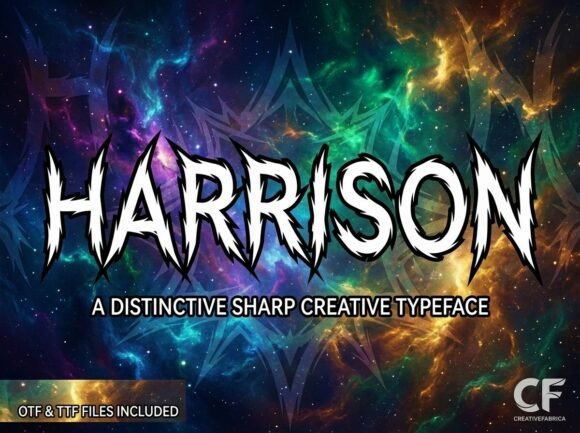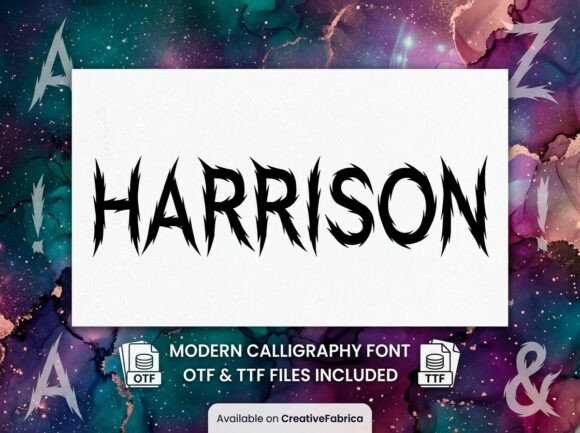
Unleash Primal Fear with Harrison: The Distressed Horror Display Font
In the realm of typography, few fonts evoke the same level of fear and unease as Harrison, a distressed display font designed to unleash a sense of primal fear. With its jagged, razor-sharp letterforms and “slasher-film” soul, Harrison is the perfect choice for designers and crafters looking to create spine-chilling horror movie titles, dark fantasy novel covers, heavy metal album art, and Halloween event branding.
The Inspiration Behind Harrison
Harrison’s design is inspired by the raw, unbridled energy of horror movies and the dark, mystical worlds of fantasy literature. The font’s jagged, thorn-like silhouettes and frantic claw marks evoke the sense of chaos and destruction that is characteristic of the horror genre. With its aggressive verticality and raw, weathered edges, Harrison is a font that demands attention and inspires fear.
Design Features of Harrison
Harrison’s design features a range of characteristics that make it the perfect choice for horror and dark fantasy projects. Some of the key design features of Harrison include:
• Jagged, razor-sharp letterforms: Harrison’s letterforms are designed to resemble frantic claw marks or thorn-like silhouettes, giving the font a raw, aggressive feel.
• Aggressive verticality: Harrison’s vertical orientation gives the font a sense of height and grandeur, making it perfect for titles and headings.
• Raw, weathered edges: Harrison’s edges are rough and weathered, giving the font a sense of age and wear that adds to its distressed, horror-inspired aesthetic.
Uses for Harrison
Harrison is a versatile font that can be used in a range of projects, from horror movie titles and dark fantasy novel covers to heavy metal album art and Halloween event branding. Some of the key uses for Harrison include:
• Horror movie titles: Harrison’s jagged, razor-sharp letterforms and aggressive verticality make it the perfect choice for horror movie titles.
• Dark fantasy novel covers: Harrison’s raw, weathered edges and thorn-like silhouettes evoke the sense of mystery and danger that is characteristic of dark fantasy literature.
• Heavy metal album art: Harrison’s aggressive, in-your-face design makes it a natural fit for heavy metal album art.
• Halloween event branding: Harrison’s spooky, distressed aesthetic makes it the perfect choice for Halloween event branding, from haunted house promotions to spooky party invites.
Why Choose Harrison?
So why choose Harrison for your next project? Here are just a few reasons why Harrison is the perfect choice for designers and crafters:
• Instant recognition: Harrison’s unique, distressed design ensures instant recognition and attention-grabbing impact.
• Flexibility: Harrison can be used in a range of projects, from horror movie titles and dark fantasy novel covers to heavy metal album art and Halloween event branding.
• High-quality design: Harrison is designed to the highest standards, with clean lines, precise curves, and a level of detail that ensures it looks great in any context.
In conclusion, Harrison is a distressed horror display font that is designed to unleash a sense of primal fear. With its jagged, razor-sharp letterforms, aggressive verticality, and raw, weathered edges, Harrison is the perfect choice for designers and crafters looking to create spine-chilling horror movie titles, dark fantasy novel covers, heavy metal album art, and Halloween event branding. Whether you’re a professional designer or a DIY crafter, Harrison is a font that is sure to inspire fear and grab attention.